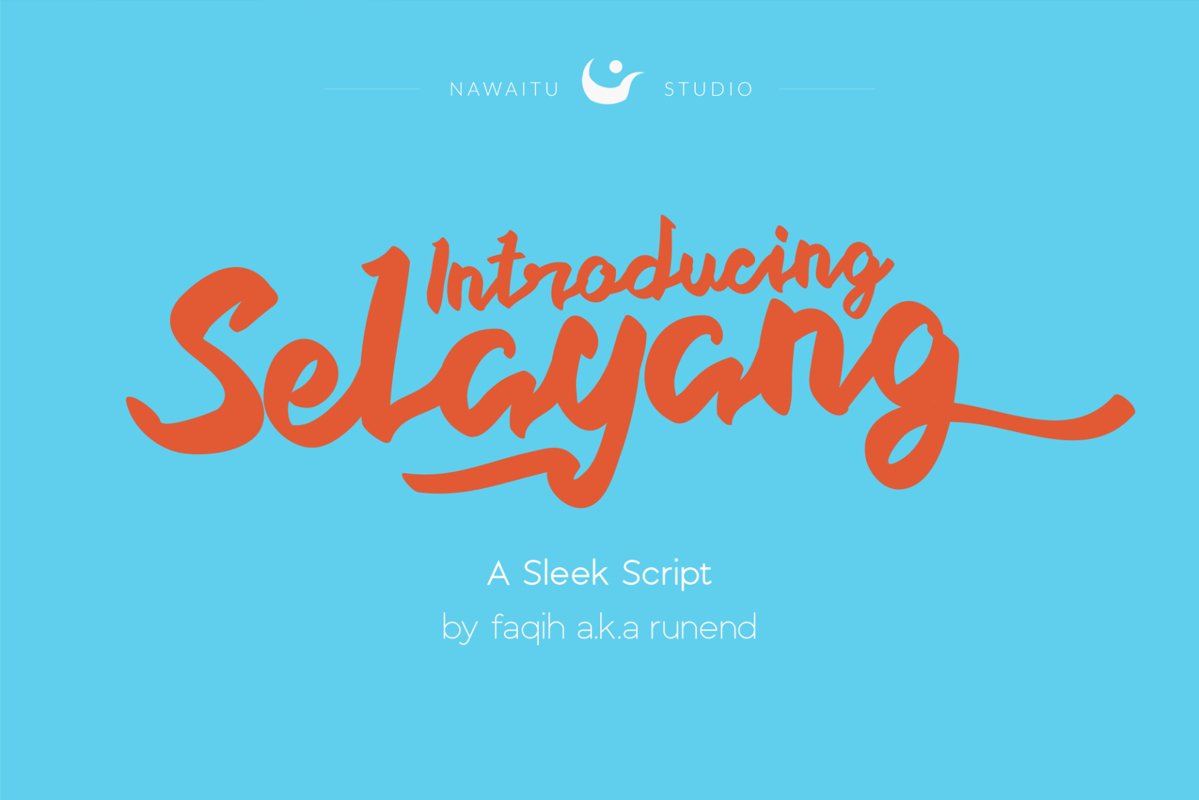
Selayang Script
Selayang Script is a classy script font, dapper handwritten font with a charm. Selayang Script is perfect for branding projects, homeware designs, product packaging - or simply as a stylish text overlay to any background image. Selayang Script font also includes full set of uppercase and lowercase letters, multilingual symbols, numerals, ligature, alternate, punctuation. That's it! I really hope you enjoy it -